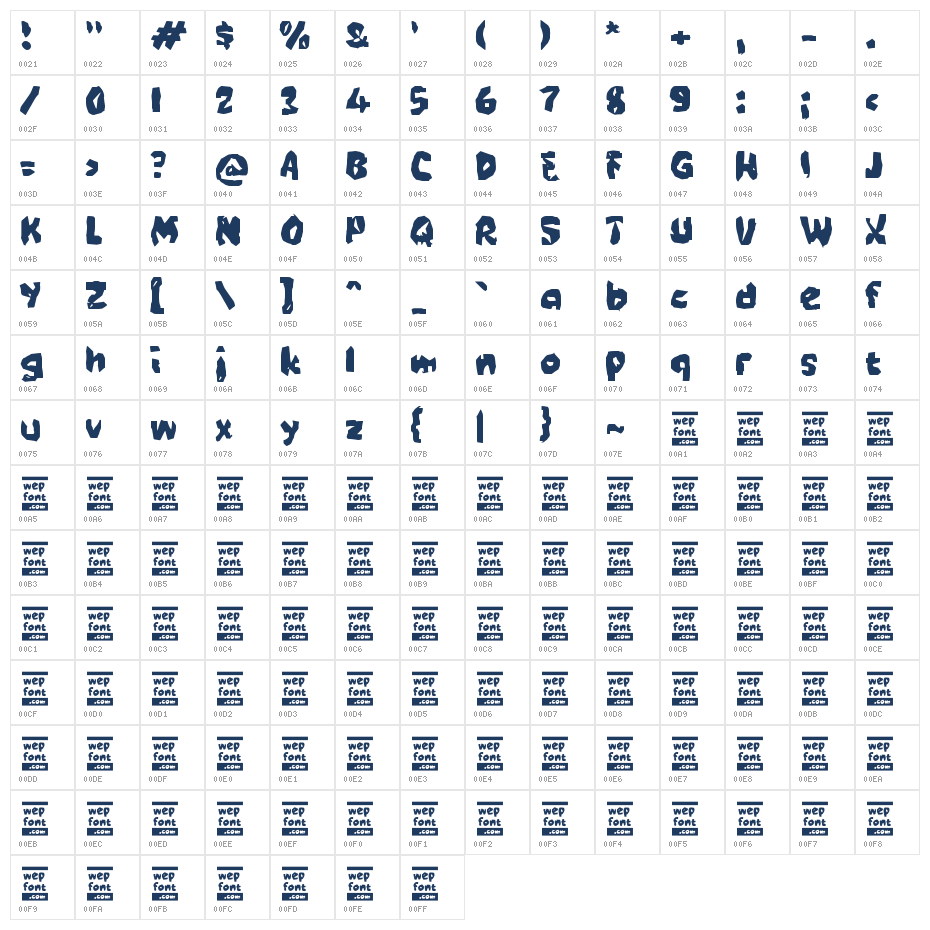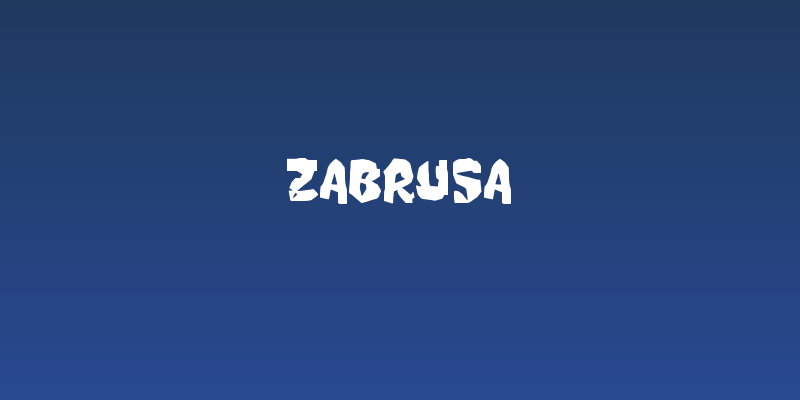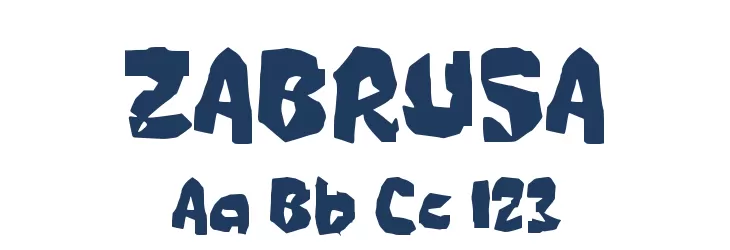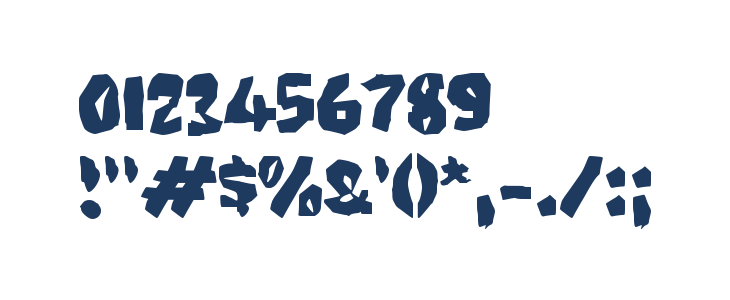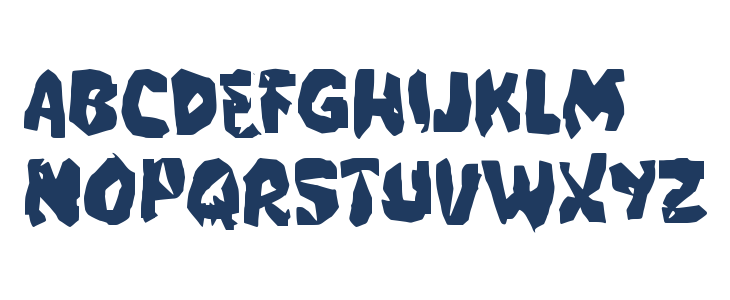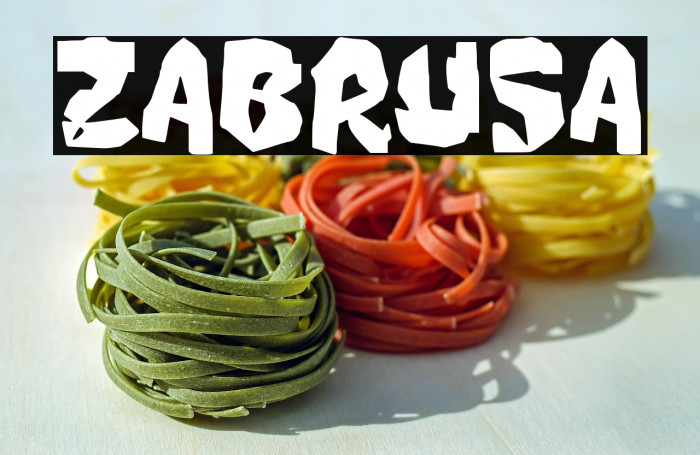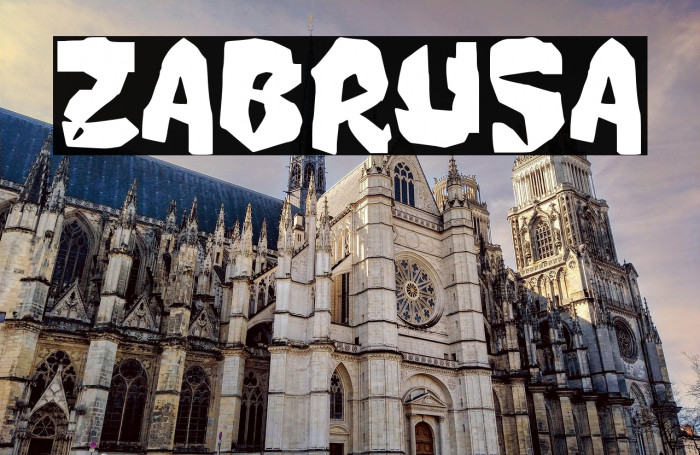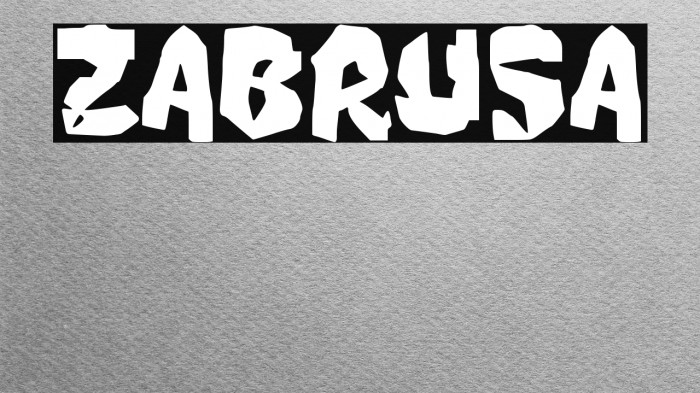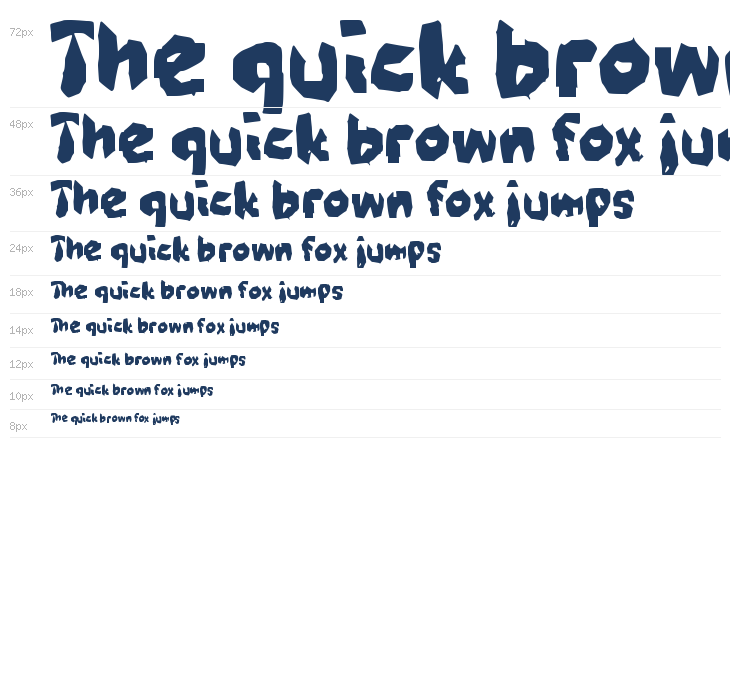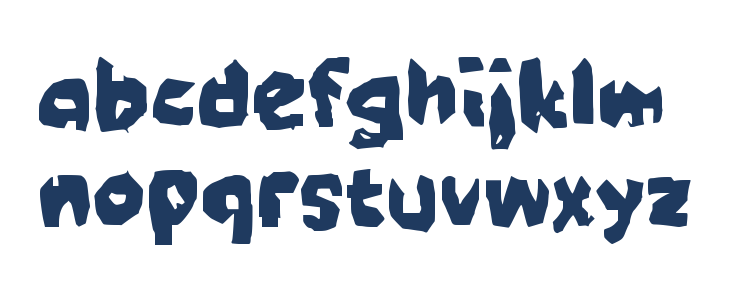
ZABRUSA Font
ZABRUSA Description
A bold, irregular, and jagged display font with a rough, hand-drawn appearance, featuring uppercase and lowercase letters, numbers, and special characters.
| Overall Style | Playful, Edgy, Hand-drawn |
| Use Case | Headlines, Posters, Logos, Creative branding |